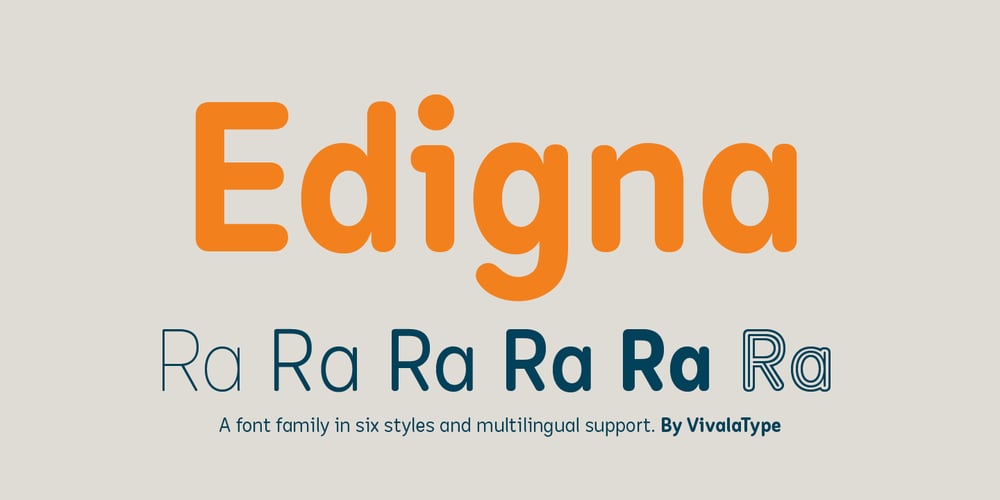
Edigna Font Family was designed by Johannes Hoffmann and published by Johannes Hoffmann. Edigna contains 6 styles and family package options. Edigna is a clean, rounded sans-serif with a tall x-height. It contains five different weights and a matching inline style. The font family supports a variety of languages, including Western, Southern, Northern and Central European as well as Eastern European. It’s good for headlines, posters, brands, and magazines.